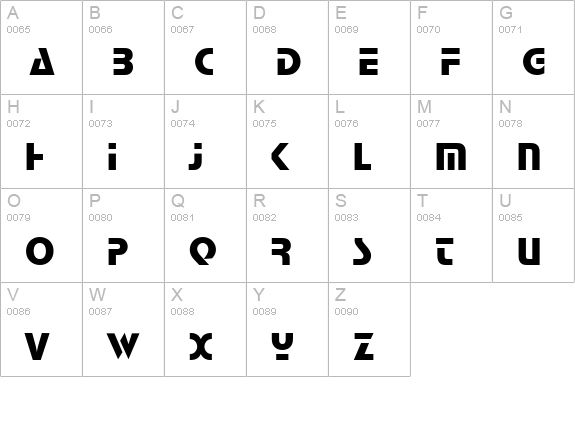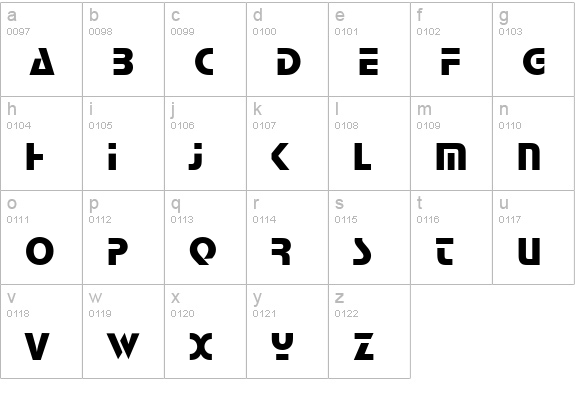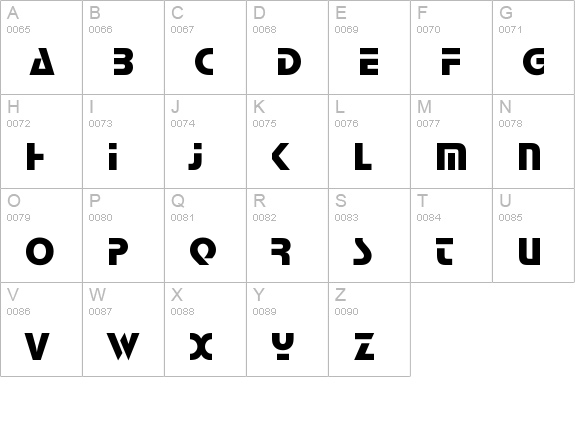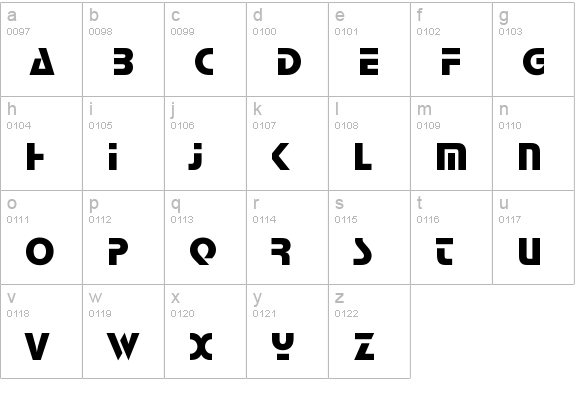
FFX Futurist Font Details
The FFX Futurist font is a modern and sleek typeface that exudes a sense of innovation and forward-thinking design. Its clean lines and sharp angles give it a futuristic appearance that is perfect for projects seeking a cutting-edge aesthetic. This versatile font can be used for a variety of design applications, from branding and advertising to digital media and web design. What sets the FFX Futurist font apart is not only its striking visual appeal but also the fact that it is available for free download at FontsMarket.com. This means that designers and creatives can easily access this high-quality font without any cost, making it an excellent choice for those looking to enhance their projects with a touch of modern sophistication. Whether you're working on a website, poster, logo, or any other creative endeavor, the FFX Futurist font is sure to make a bold statement and elevate your design to the next level.